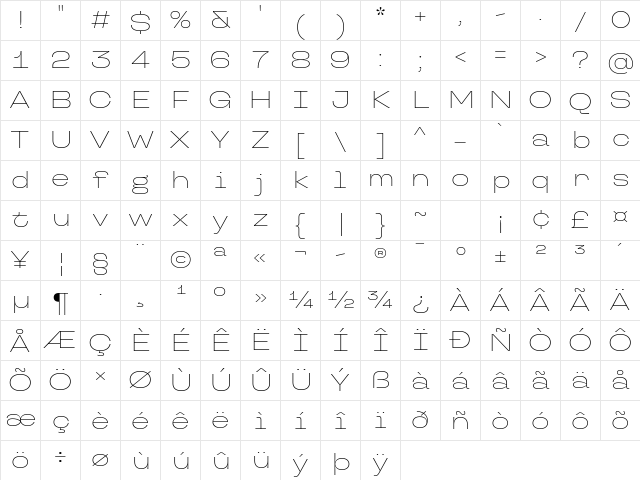
TT Travels Next Trl XLt Free Font
TT Travels Next Trl XLt
Style: XLt
Designer: Designed by Kseniya Karataeva, Yulia Gonina. Technical designers Yuriy Nako, Kirill Maslov, Ivan Gladkikh, Victor Rubenko.
Design Context for TT Travels Next Trl
TT Travels Next Trl is a composed and adaptable typeface that performs quietly and consistently across a wide range of design contexts. Its slender proportions lend an understated elegance to any composition.